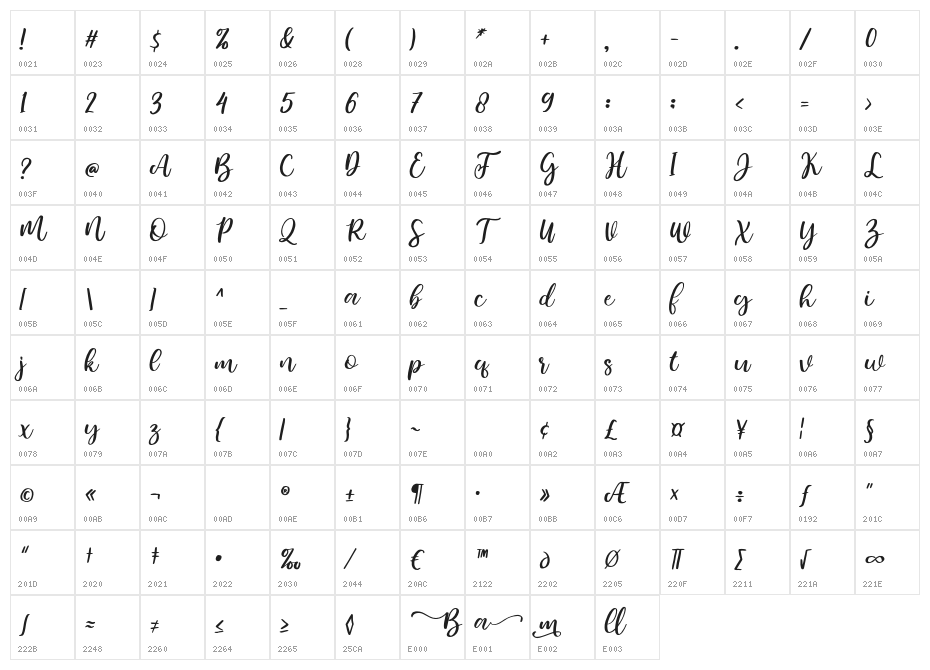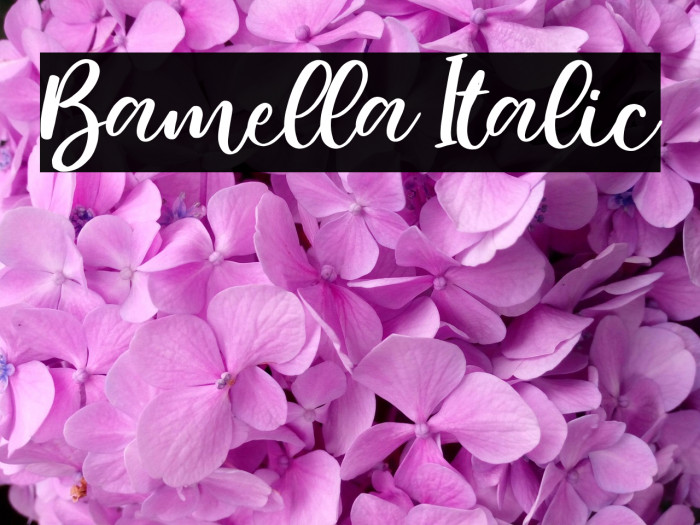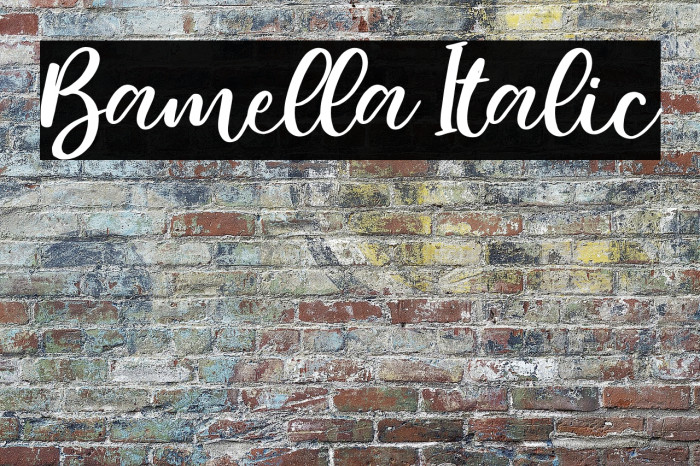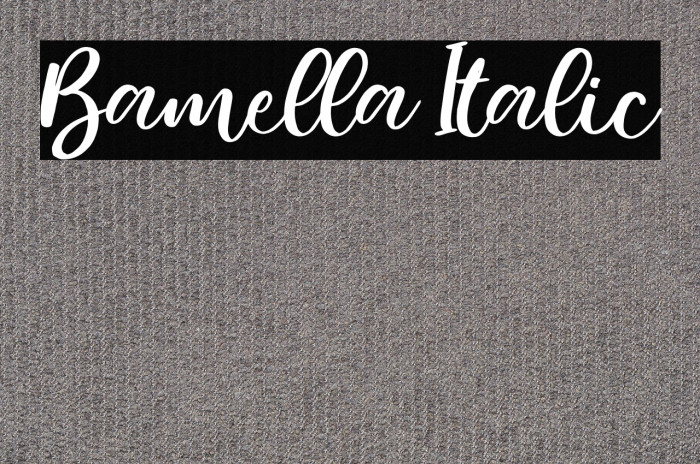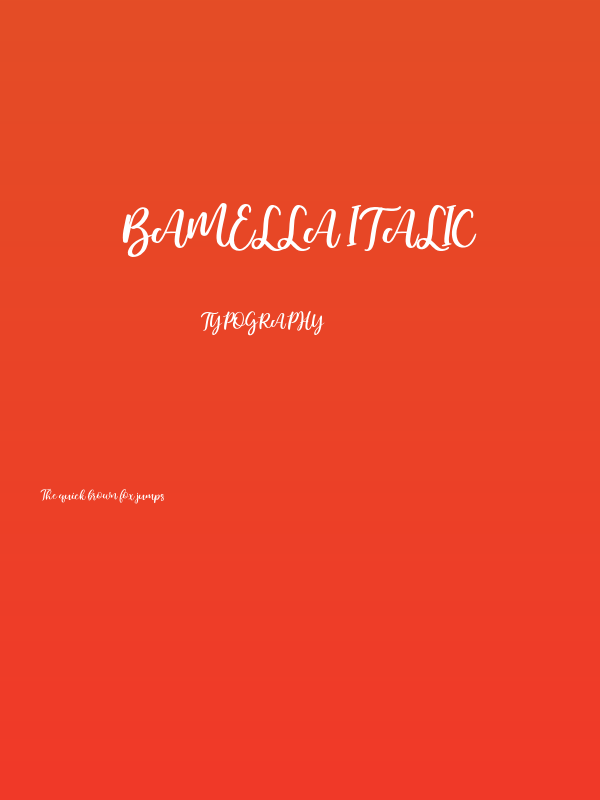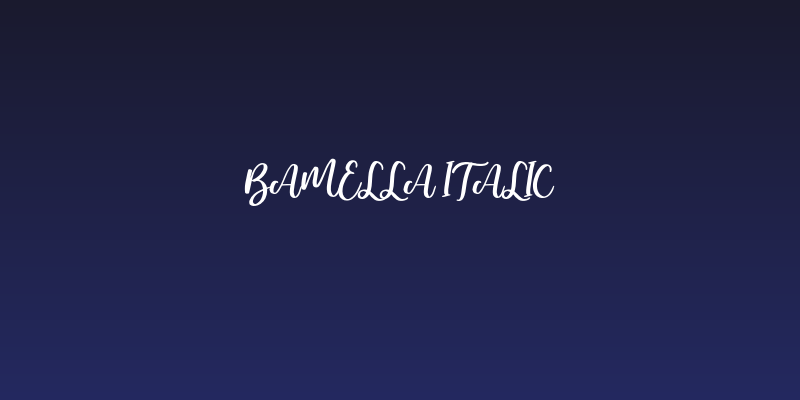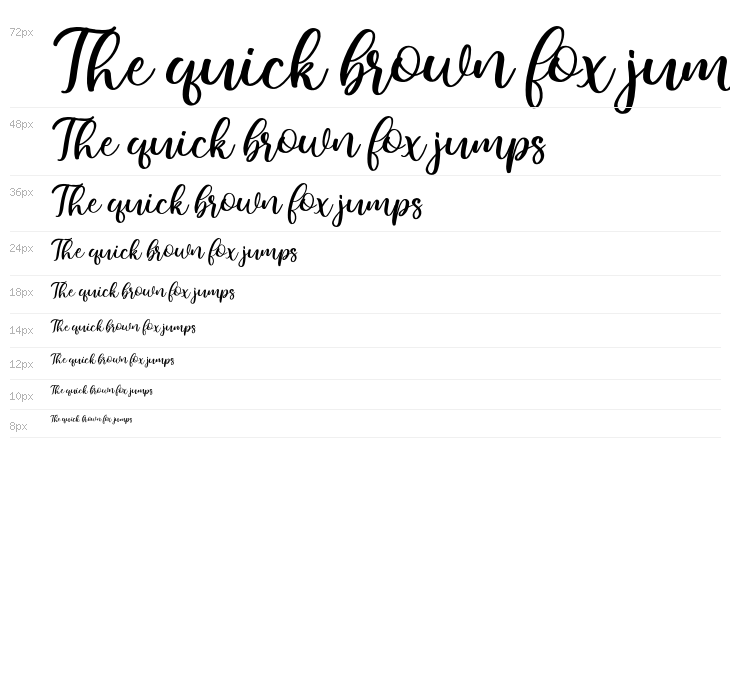
Bamella Italic Font
Bamella Italic Description
This font features a flowing, cursive style with elegant curves and a handwritten feel. The letters are connected, giving it a smooth and continuous appearance, reminiscent of calligraphy. The uppercase characters are bold and prominent, while the lowercase letters maintain a consistent flow. Numbers and special characters are designed to match the overall aesthetic, ensuring a cohesive look. The font exudes a sense of sophistication and creativity, making it suitable for artistic and expressive projects.
| Proposed Projects | Ideal for wedding invitations, greeting cards, branding, and artistic projects where a personal touch is desired. |